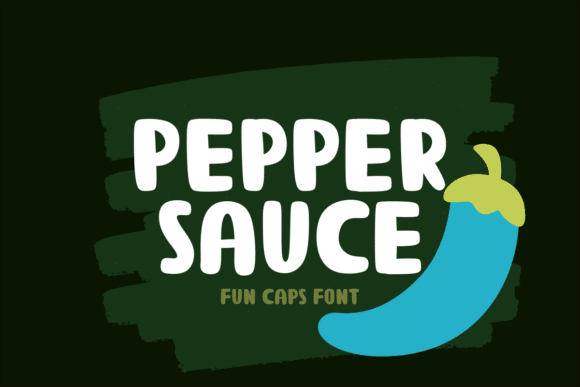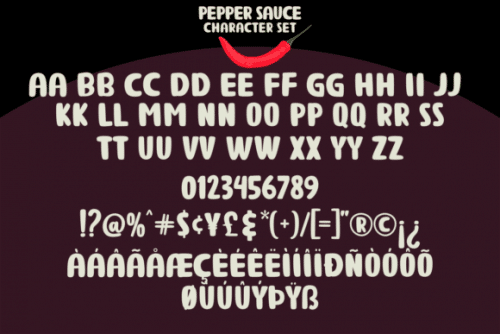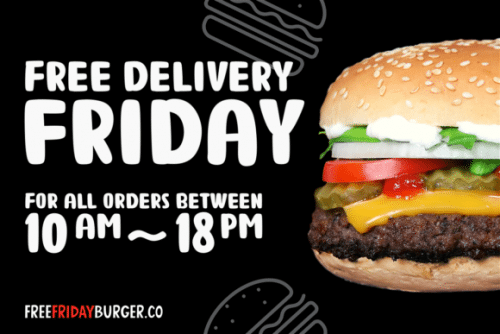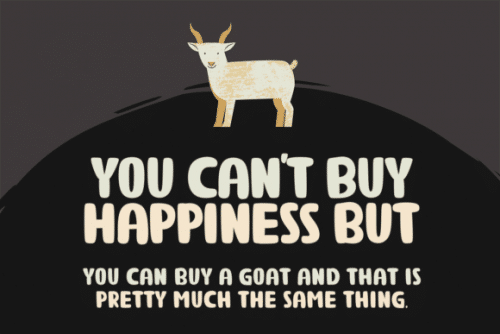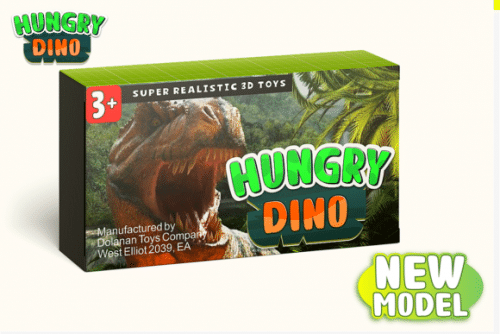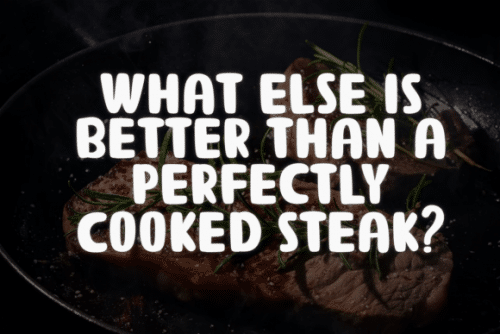
Pepper Sauce is a whimsical display font. This enchanting font will turn any creative idea into a true standout. Get creative with its unique playfulness, and use it to brighten up any crafting project!